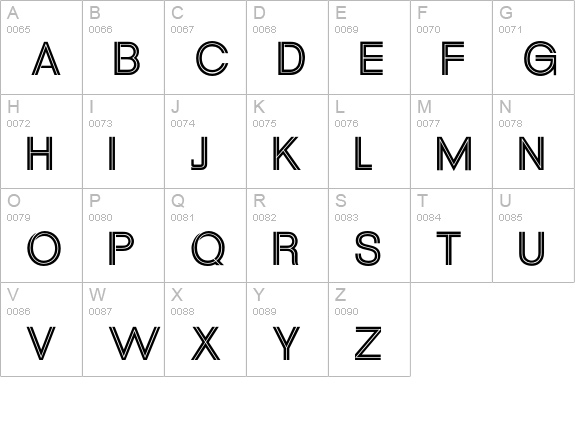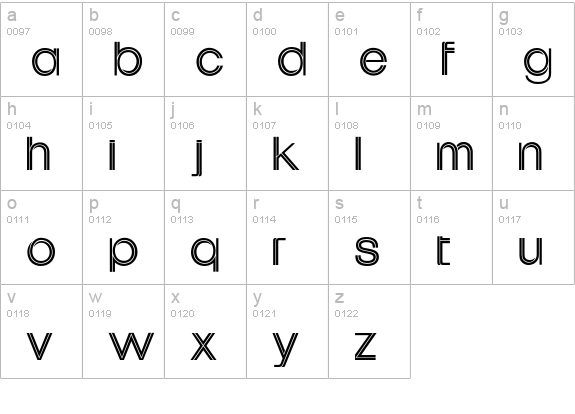
UptightRegular Font Details
UptightRegular font is the epitome of elegance and sophistication, designed for those who appreciate a touch of class in their typography. This meticulously crafted font embodies a sense of precision and refinement, making it the perfect choice for any project that requires a sleek and polished aesthetic. With its clean lines and exquisite details, UptightRegular font exudes a sense of professionalism and professionalism, making it ideal for corporate branding, advertising, and editorial design. Its versatility allows it to seamlessly blend into a wide range of design styles, from modern minimalism to classic sophistication. But what sets UptightRegular font apart is not only its impeccable design, but also its accessibility. This stunning font is freely available to download at FontsMarket.com, allowing designers and creatives from all walks of life to incorporate its beauty into their projects without breaking the bank. Whether you're a seasoned designer or just starting out on your creative journey, UptightRegular font offers a world of possibilities. Its ability to convey a sense of elegance and professionalism will elevate any design, while its freely available download ensures that everyone can enjoy its timeless beauty. So why wait? Head over to FontsMarket.com and discover the beauty of UptightRegular font. Download it today and let it transform your designs into works of art that leave a lasting impression.